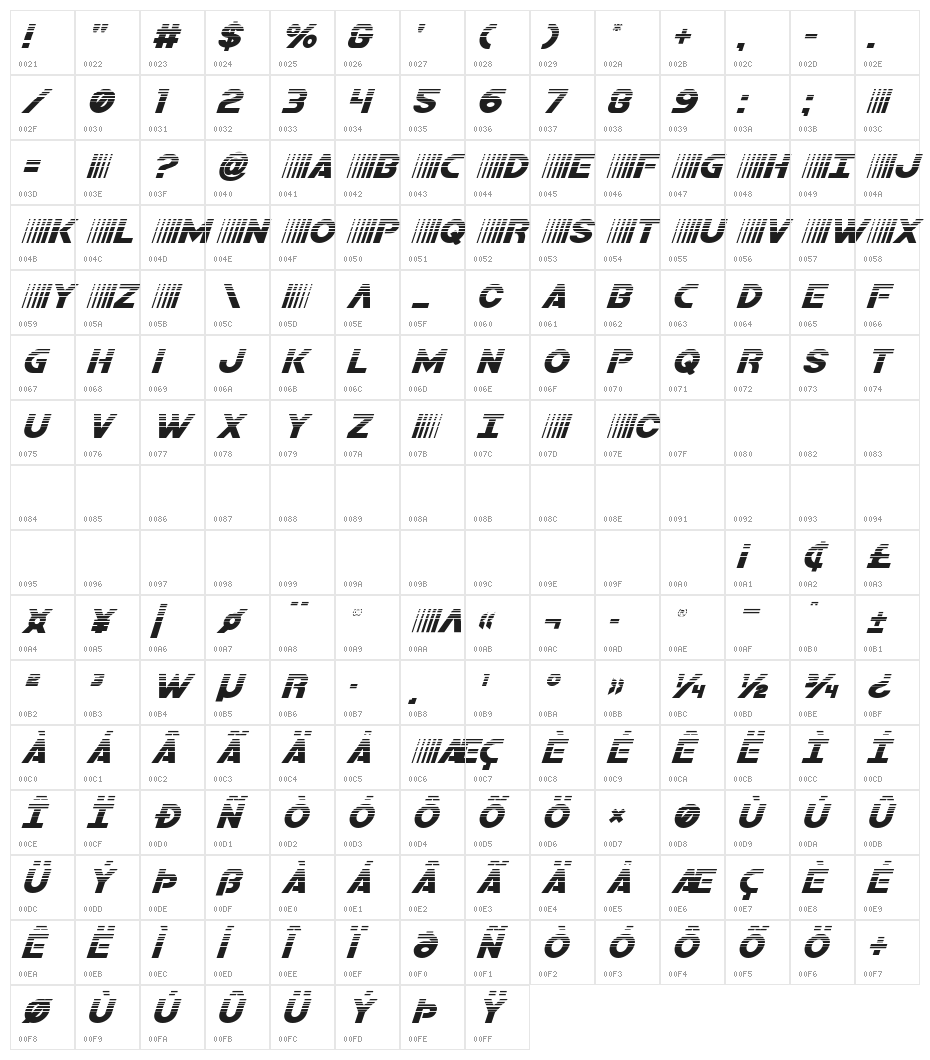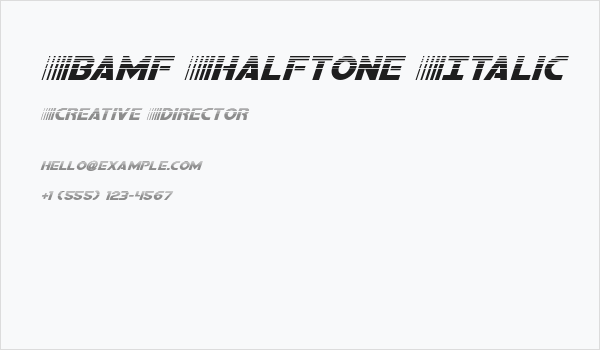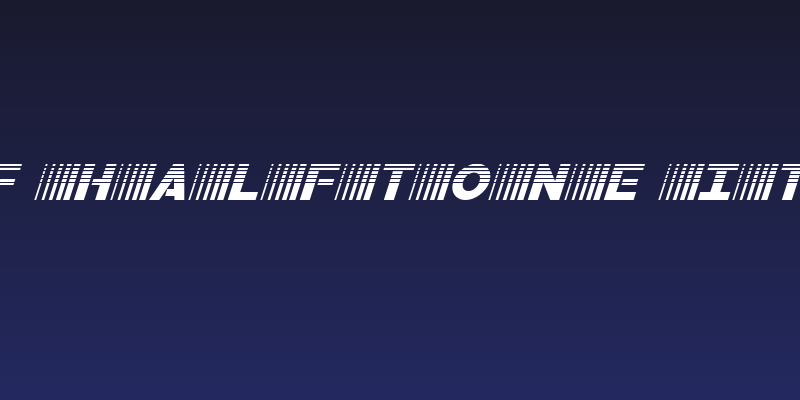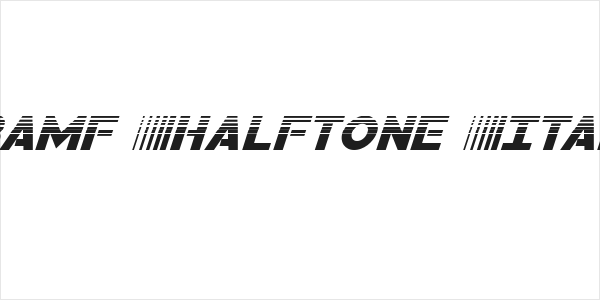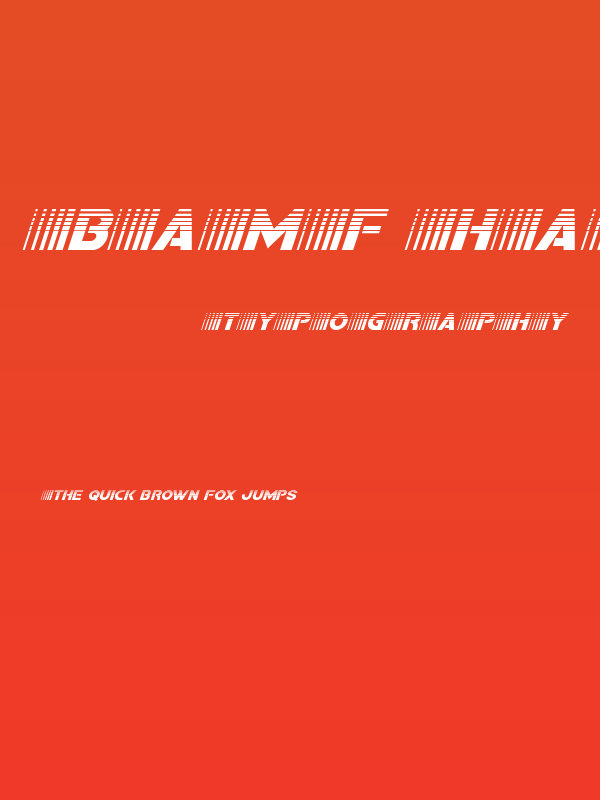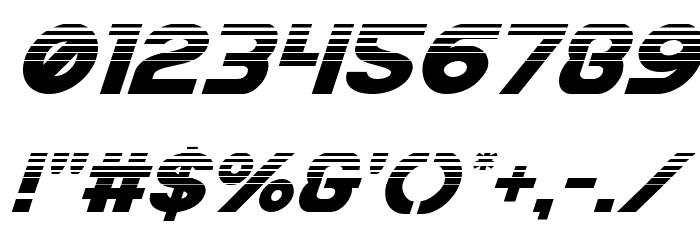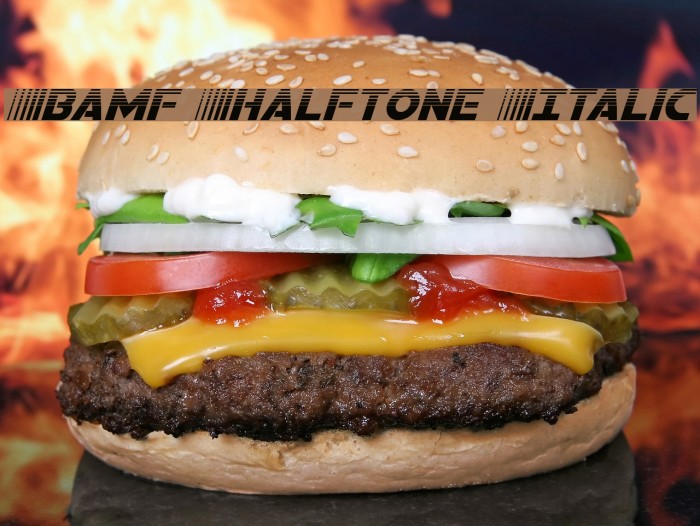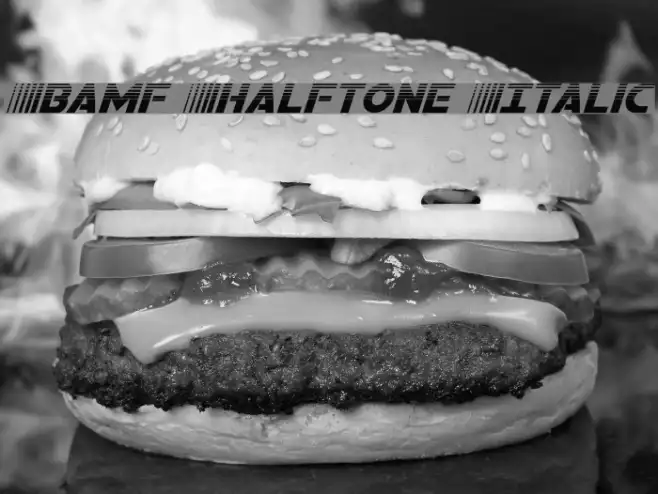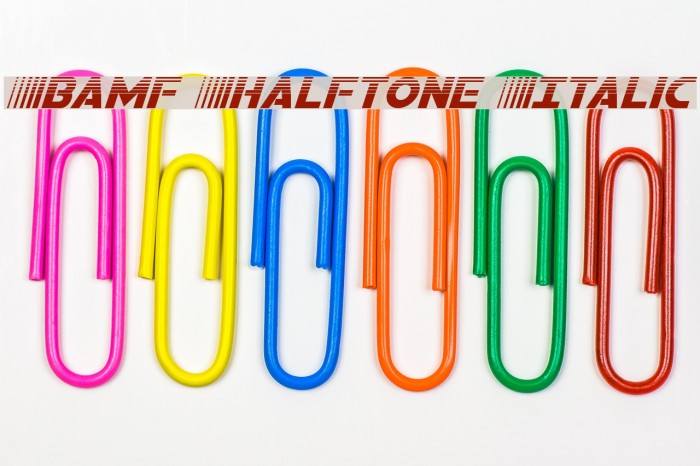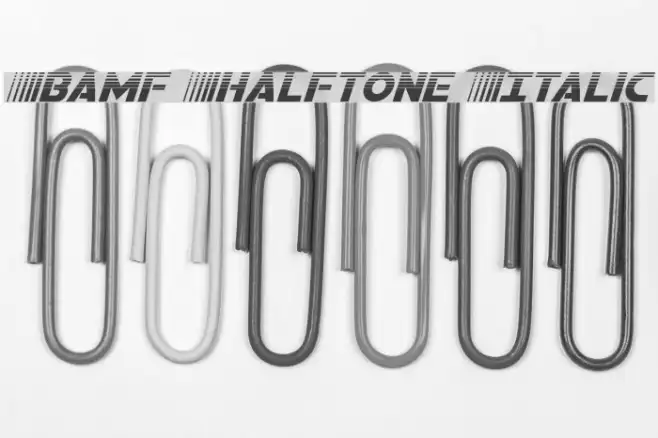
Bamf Halftone Italic Font
Bamf Halftone Italic Description
This font features a dynamic and bold design with a halftone effect that gives it a unique, modern appearance. The italicized style adds a sense of motion and energy, making it stand out. The uppercase letters are particularly striking, with thick strokes and a slanted orientation that enhances the font's boldness. The numbers and special characters maintain the same energetic style, ensuring consistency across all elements. The halftone pattern adds texture and depth, making it suitable for eye-catching designs.
| Proposed Projects | Ideal for posters, advertisements, and branding projects that require a bold and modern look. |